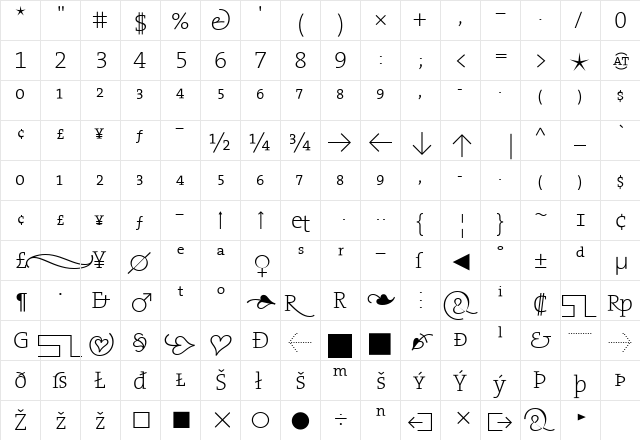
TheSerif ExtraLight Font Preview
TheSerif ExtraLight
TheSerif ExtraLight Font Details
| Style | ExtraLight |
| Foundry | Copr. Luc as de Groot |
| Copyright | Copr. Luc as de Groot 1994 |
Design Context for TheSerif Typeface
TheSerif brings classic typographic sensibility to the table — its serifs and measured letterforms reflect centuries of print heritage. The delicate stroke weight brings airiness and refinement to layouts.
Pro Tip: Set TheSerif at slightly larger body copy sizes than you would a regular-weight serif to compensate for its delicate stroke contrast.